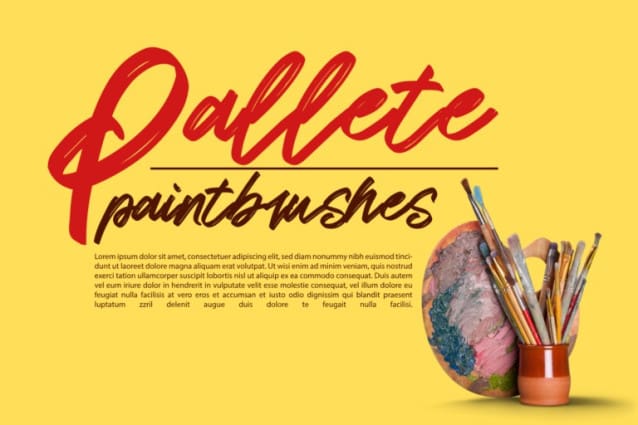
Byzantine Themes Font
Byzantine Themes Brush Font is a beautiful brush signature font. A contemporary approach to design, with naturally handmade and underscores and also has alternatives & ligatures that make your design more attractive. Suitable for use in title design. Such as clothing, invitations, tittle books, stationery designs, quotes, branding, logos, greeting cards, t-shirts, packaging designs, posters and more.